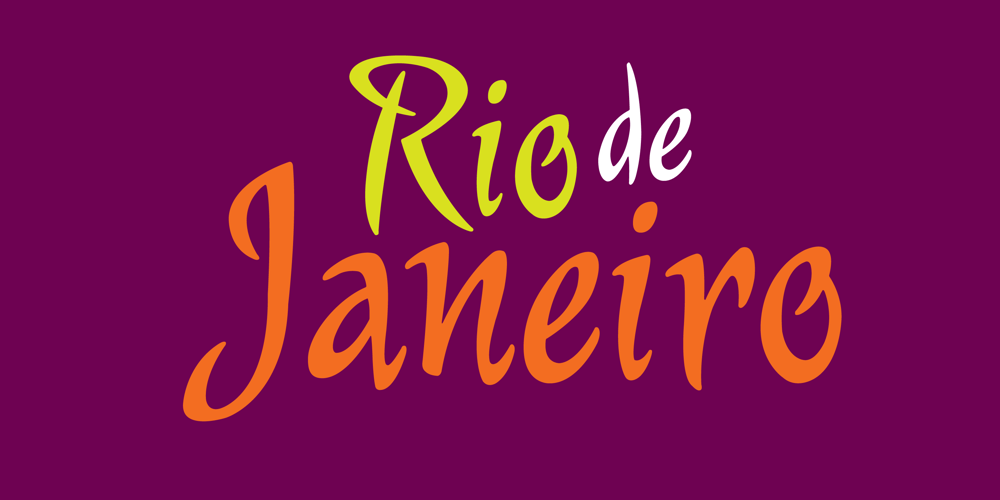
Murga
Murga font
Murga Font Family was designed by Alejandro Paul, Angel Koziupa and published by Sudtipos. Murga contains 1 styles and family package options. Angel Koziupa was drawing letters for labels since forty years ago, now he meets SudTipos and his beautiful works could be used around the world. Murga is a dance, it’s Latin, it’s carnival….